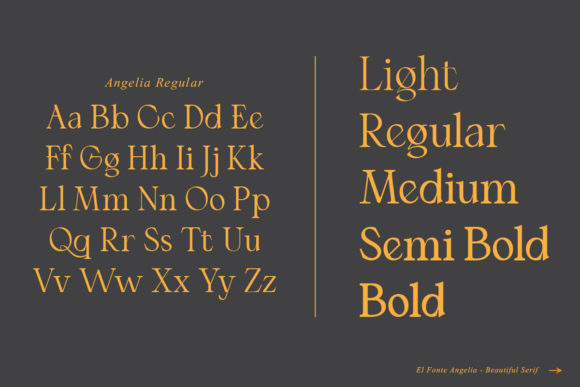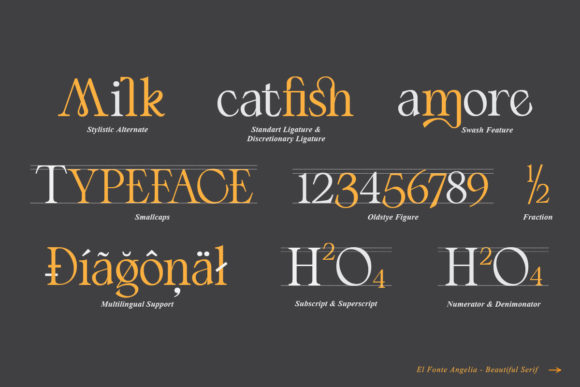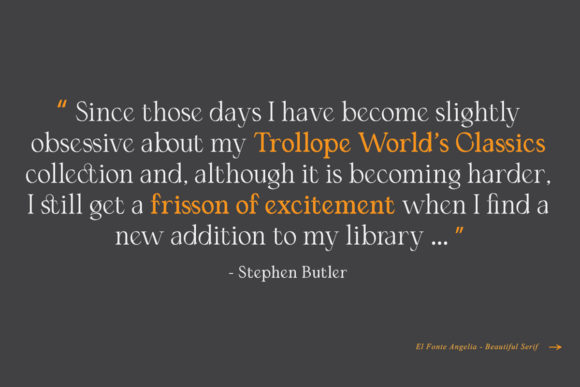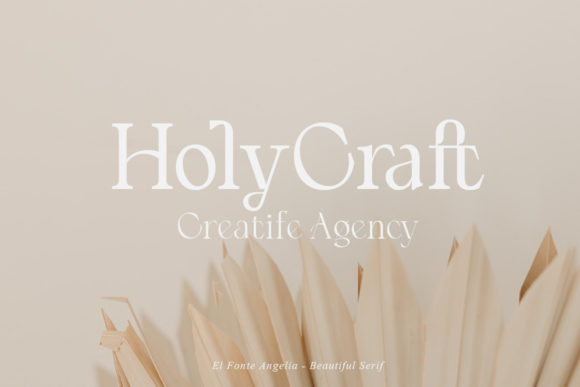
Introducing Angelia Font: Elevate Your Designs with Elegance and Sophistication
Are you a designer or crafter looking for a font that can add a touch of elegance and sophistication to your creations? Look no further than Angelia Font, a delicate, beautiful, and stylish serif font that’s perfect for a wide range of design projects. In this article, we’ll take a closer look at the features and benefits of Angelia Font, and explore how it can help take your designs to the next level.
What is Angelia Font?
Angelia Font is a stunning serif font that’s designed to add a touch of class and sophistication to your designs. With its delicate lines and beautiful curves, this font is perfect for creating elegant and refined designs that will leave a lasting impression. Whether you’re working on a logo, brochure, or website, Angelia Font is a versatile choice that can help you achieve your design goals.
Key Features of Angelia Font
So, what makes Angelia Font so special? Here are just a few of its key features:
- Delicate and Beautiful Design: Angelia Font features a delicate and beautiful design that’s perfect for creating elegant and refined designs.
- PUA Encoded: This font is PUA encoded, which means you can access all of the amazing glyphs and ligatures with ease.
- Stylish Serif Font: Angelia Font is a stylish serif font that’s perfect for adding a touch of sophistication to your designs.
- Ease of Use: With Angelia Font, you can easily access all of the amazing glyphs and ligatures, making it simple to create stunning designs.
Benefits of Using Angelia Font
So, why should you choose Angelia Font for your design projects? Here are just a few of the benefits of using this amazing font:
- Elegance and Sophistication: Angelia Font can add a touch of elegance and sophistication to your designs, helping you to create refined and polished designs.
- Versatility: This font is perfect for a wide range of design projects, from logos and brochures to websites and more.
- Easy to Use: With its PUA encoding, Angelia Font is easy to use, even for designers who are new to working with fonts.
- High-Quality Design: Angelia Font features a high-quality design that’s perfect for creating professional-looking designs.
How to Use Angelia Font in Your Designs
Using Angelia Font in your designs is easy. Here are just a few tips to get you started:
- Pair it with Other Fonts: Angelia Font pairs well with other fonts, making it easy to create stunning combinations.
- Experiment with Different Sizes: Try using Angelia Font in different sizes to create visual interest and add depth to your designs.
- Use it for Headings and Titles: Angelia Font is perfect for use in headings and titles, where its elegant design can really shine.
- Add it to Your Website: Consider adding Angelia Font to your website to create a consistent and professional look.
| Font Name | Angelia Font |
| Author | Gilar Studio |
In conclusion, Angelia Font is a stunning serif font that’s perfect for designers and crafters looking to add a touch of elegance and sophistication to their designs. With its delicate lines, beautiful curves, and PUA encoding, this font is easy to use and versatile enough for a wide range of design projects. Whether you’re working on a logo, brochure, or website, Angelia Font is a great choice that can help you achieve your design goals.